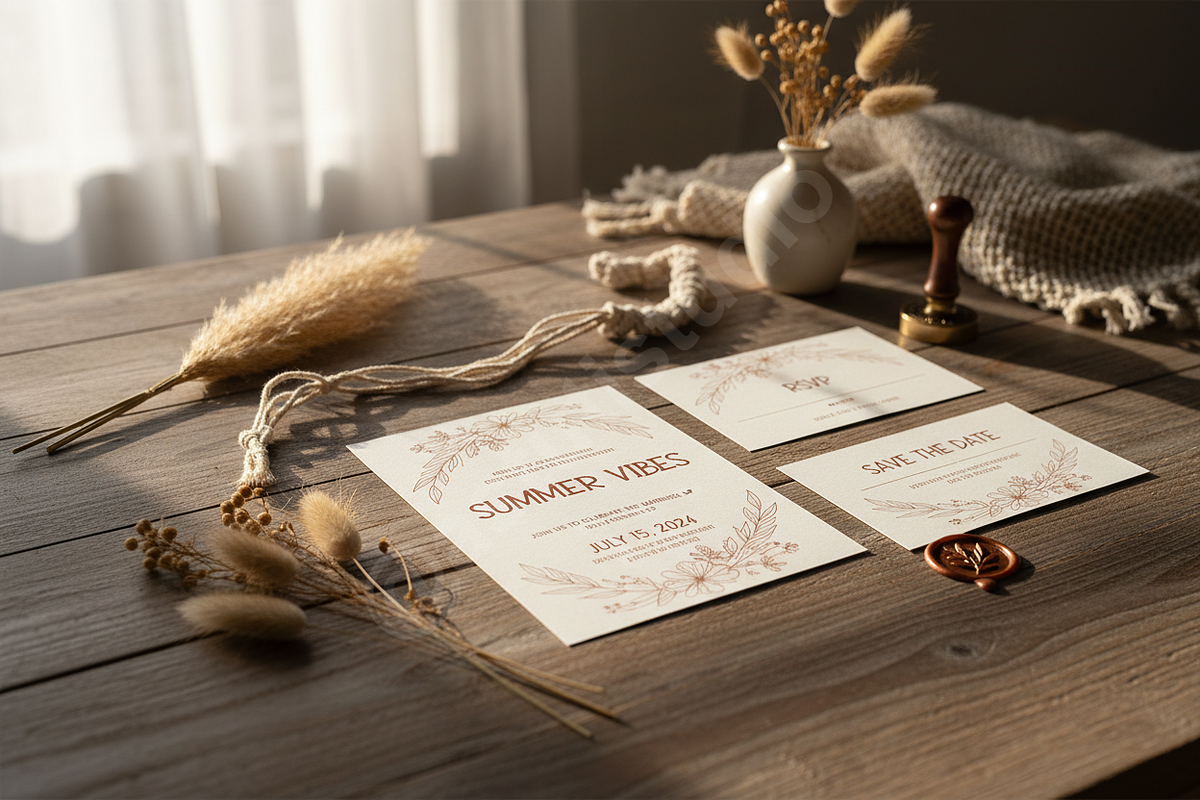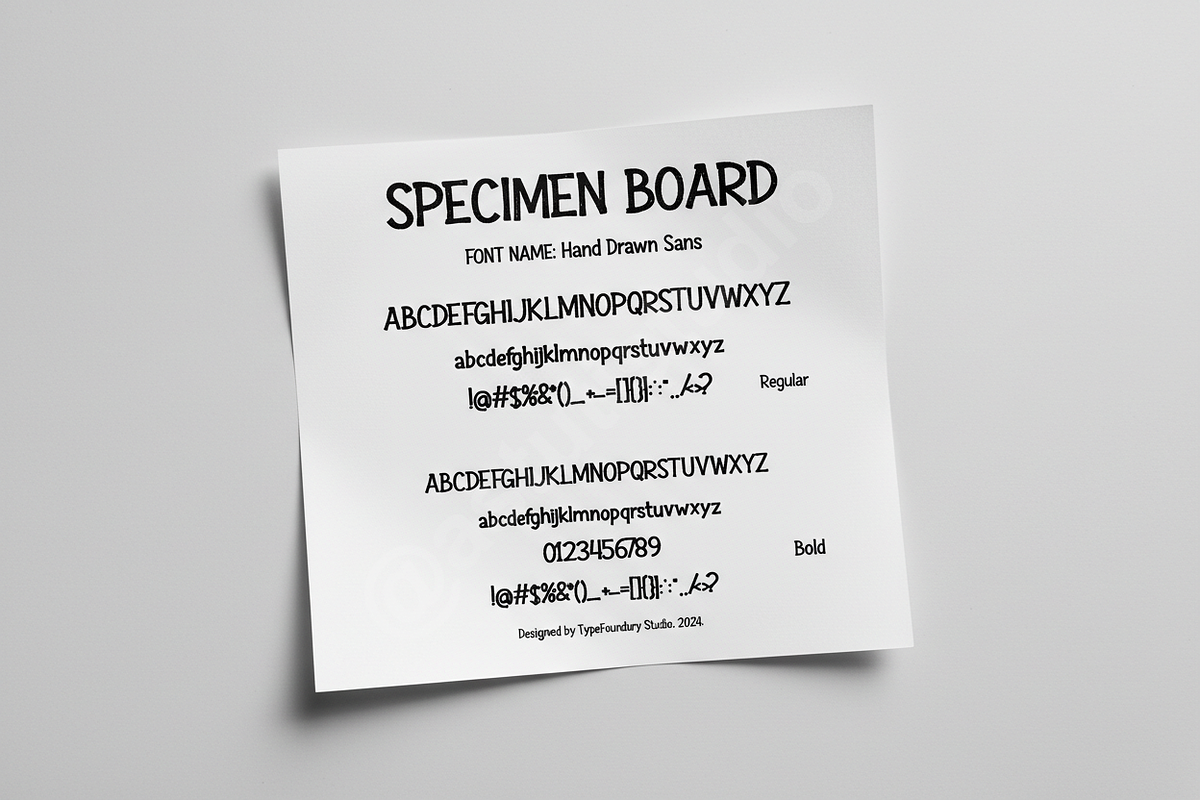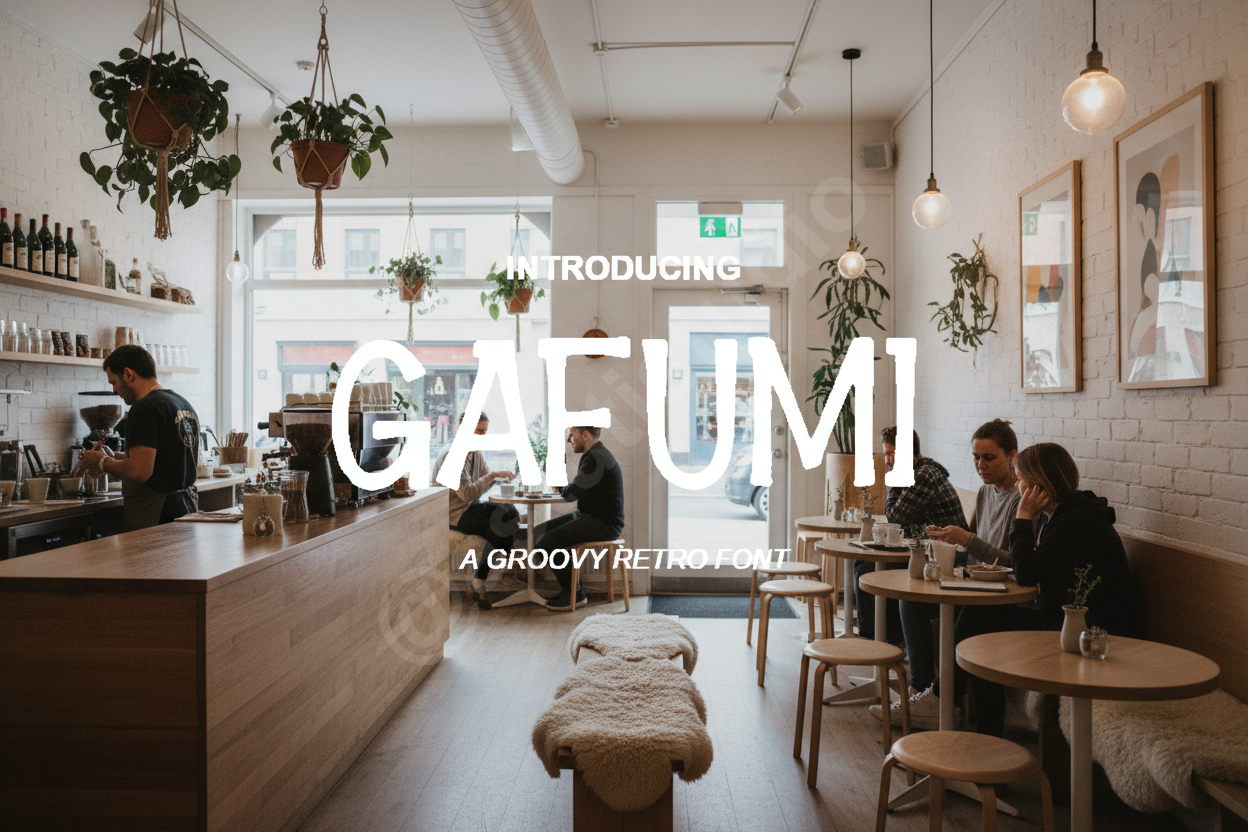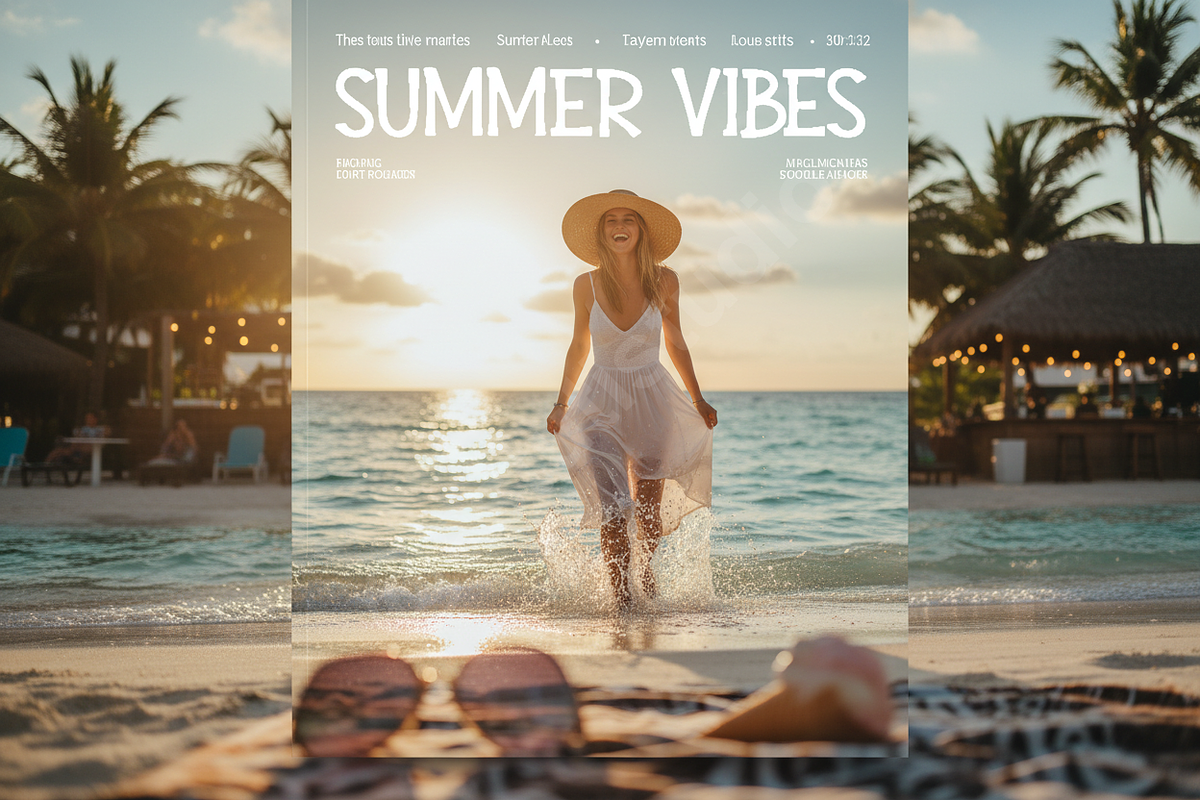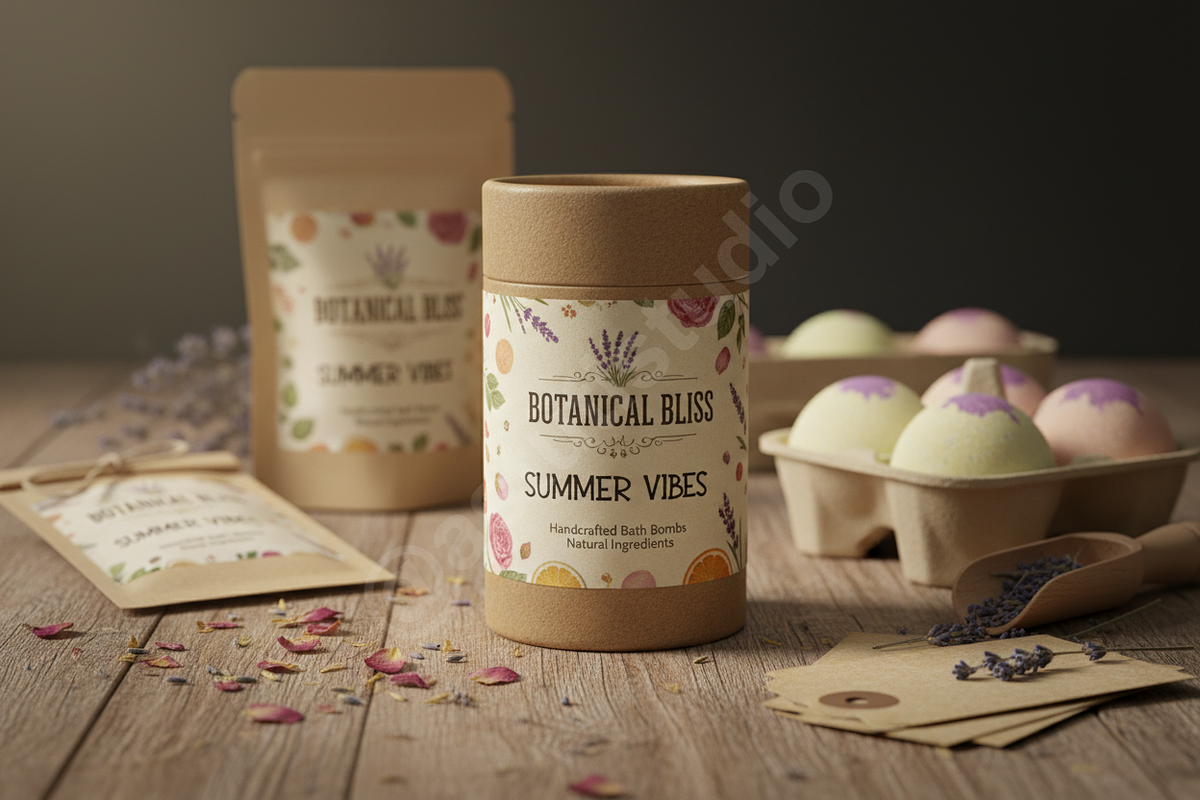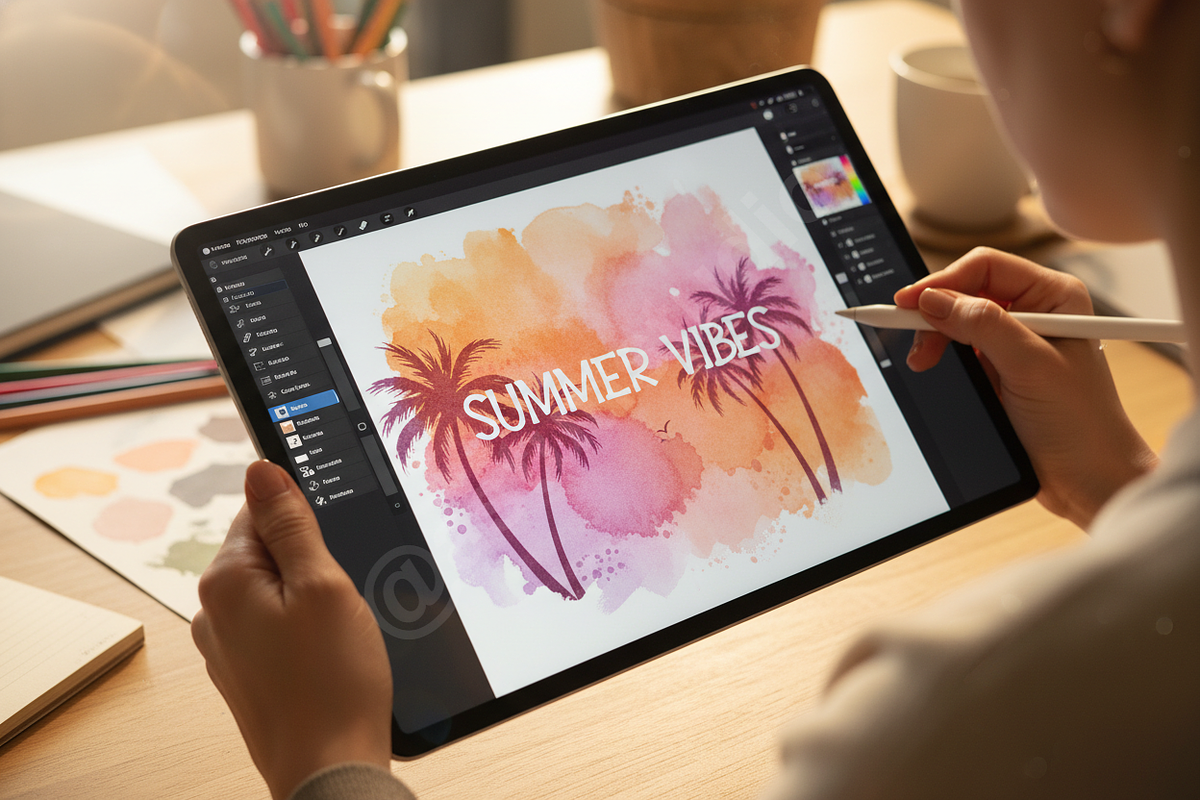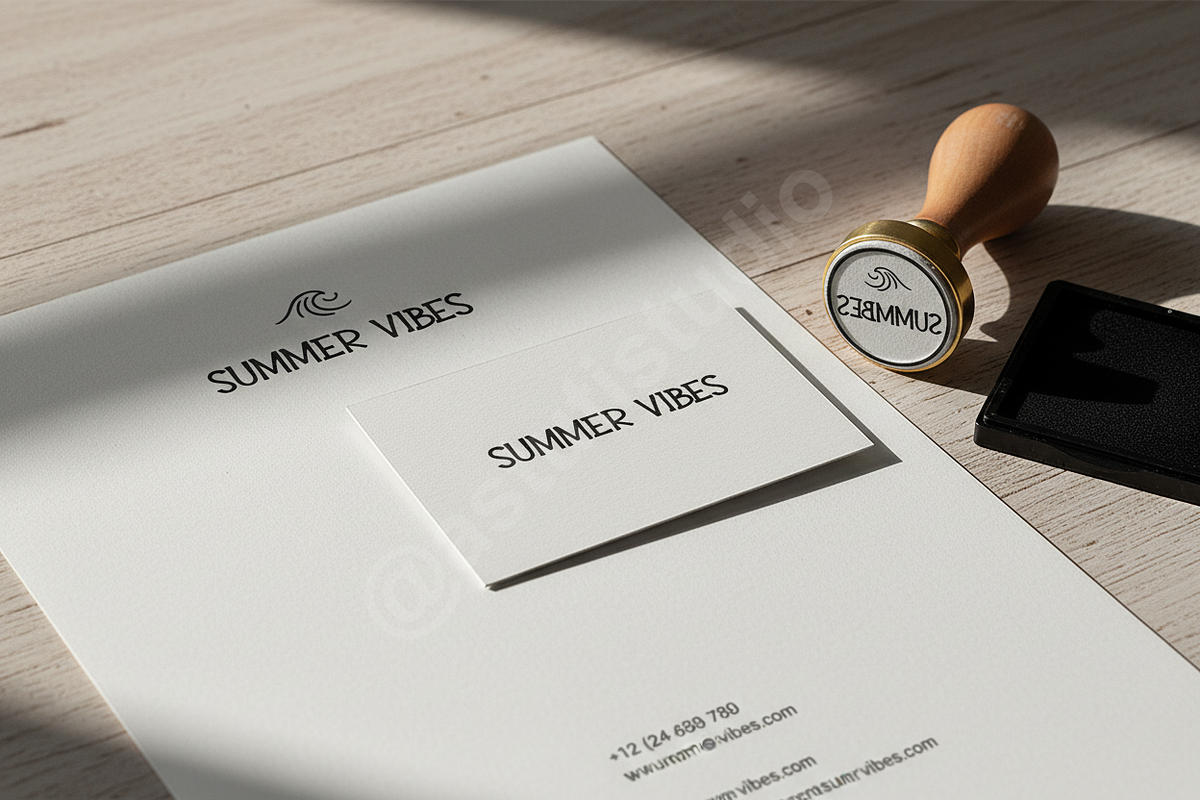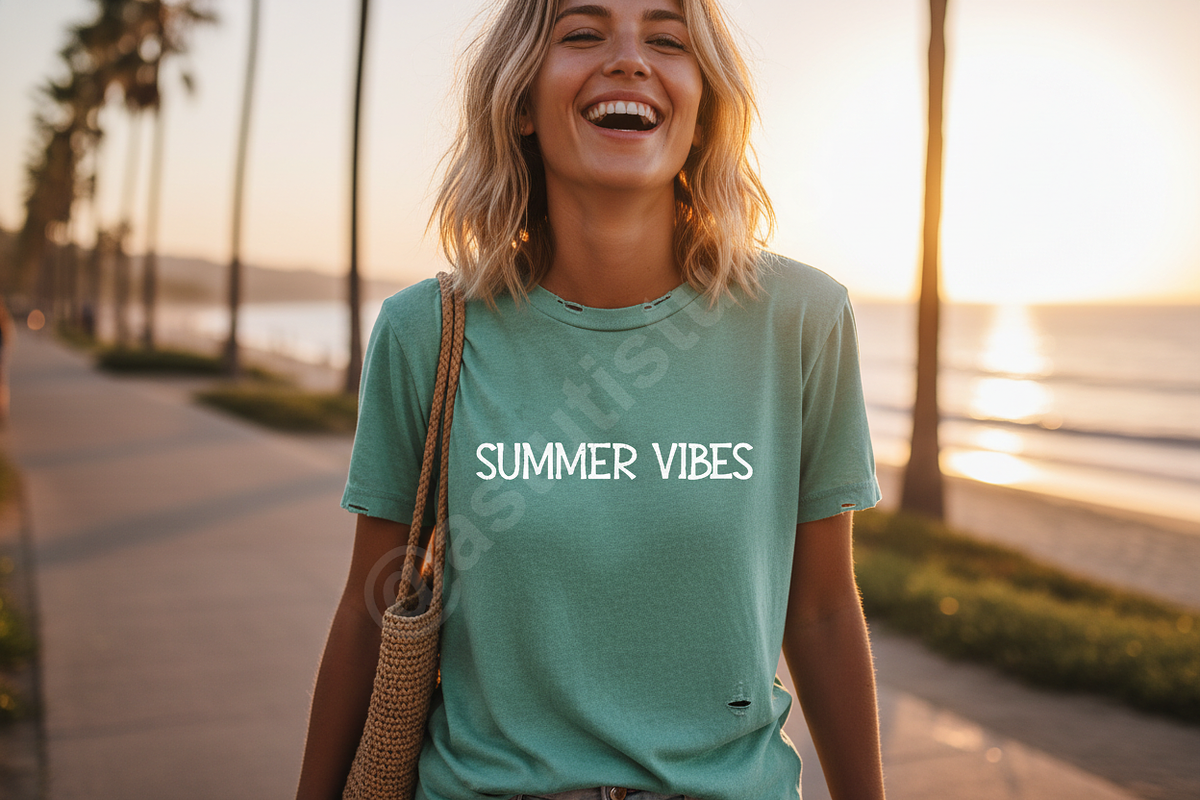
Gafumi – Elegant Serif Typeface
Introducing Gafumi, an exquisite serif typeface meticulously crafted to elevate your design projects with an air of sophisticated luxury. Gafumi embodies a timeless elegance, making it the quintessential choice for high-end branding, captivating editorial layouts, and impactful social media campaigns. Its refined letterforms and balanced proportions exude professionalism and an exclusive aesthetic, perfect for brands seeking to convey prestige and discerning taste. Experience the seamless blend of classic charm and contemporary finesse that Gafumi brings to every application.
### Features:
- Elegant Uppercase & Lowercase Characters: Designed for aesthetic balance and readability.
- Extensive Punctuation & Numerals: Comprehensive set for versatile content creation.
- Multilingual Support: Broad language coverage to reach a global audience.
- Ligatures & Alternates: Enhance typographic beauty and customization options.
- Modern Aesthetic with Classic Roots: A versatile design suitable for various luxury contexts.
- Optimized for Display & Text: Performs beautifully in headlines and smaller body text.